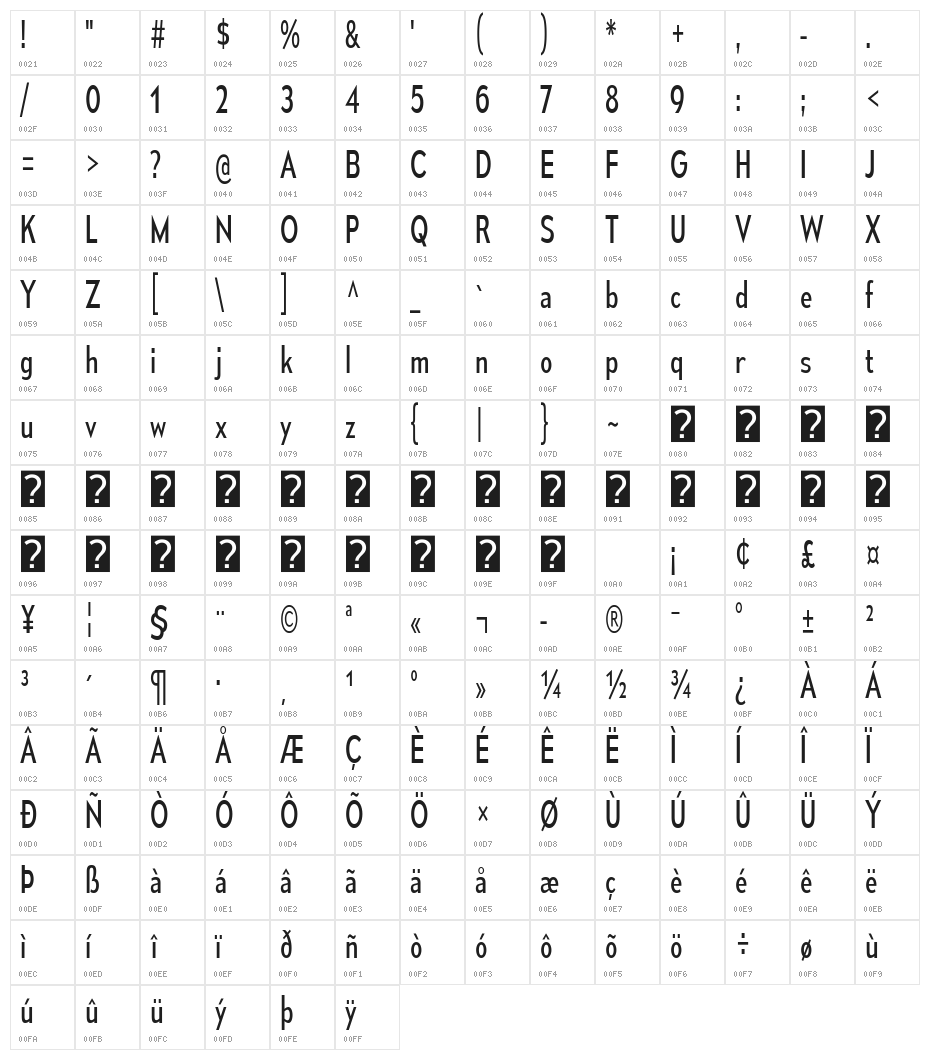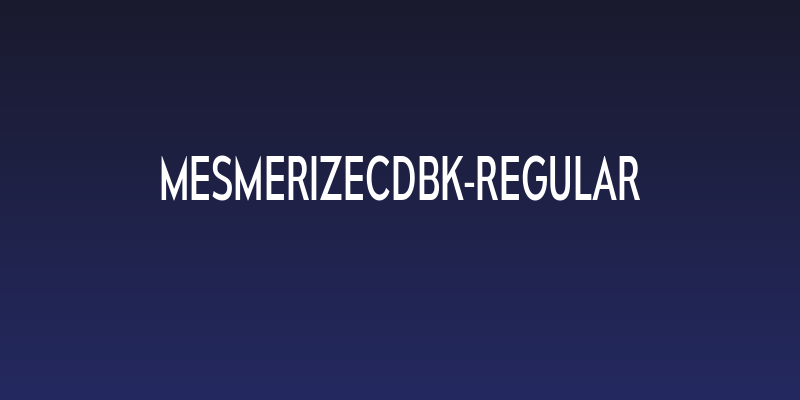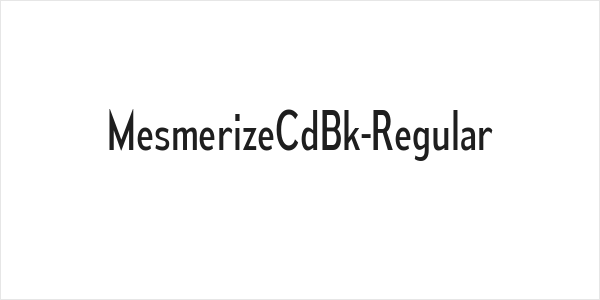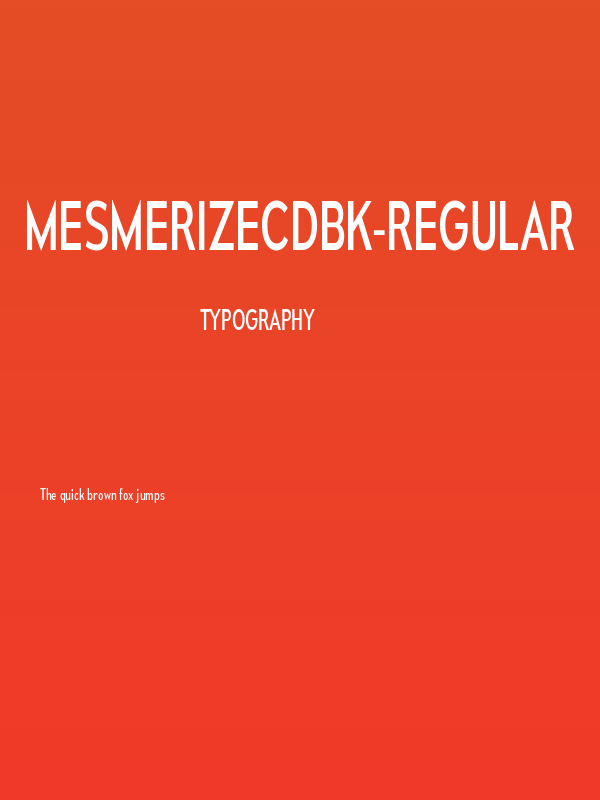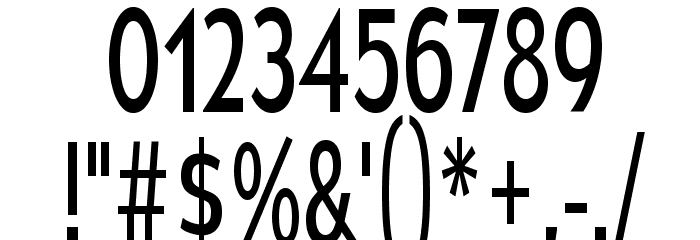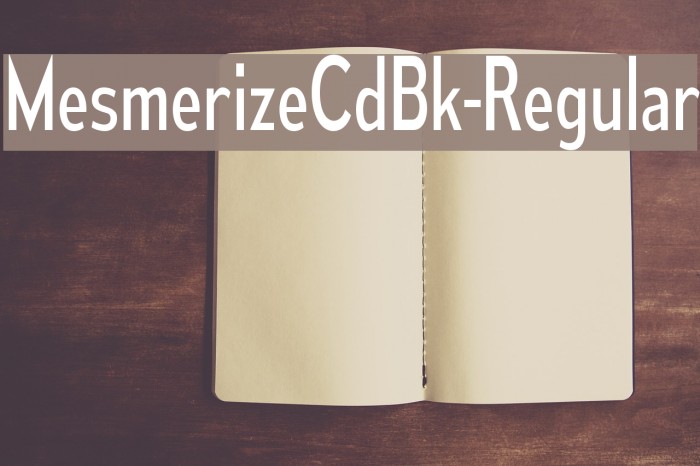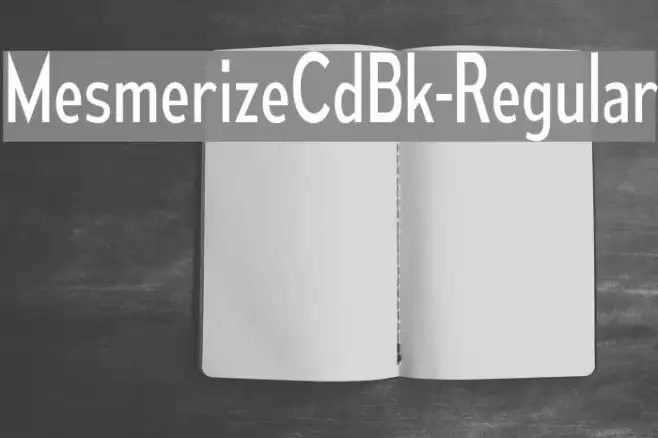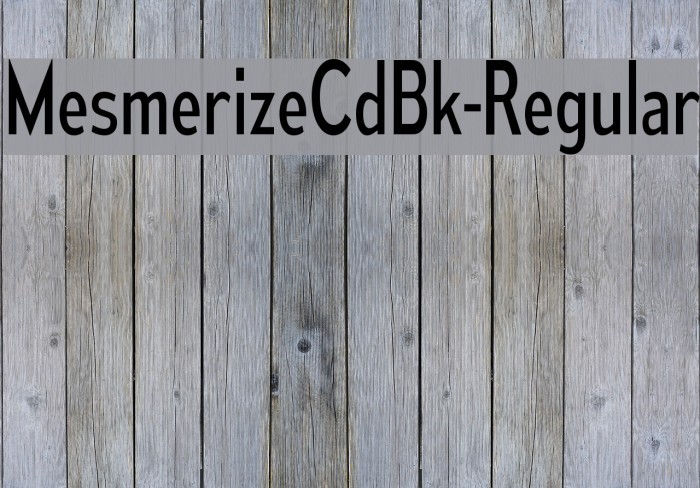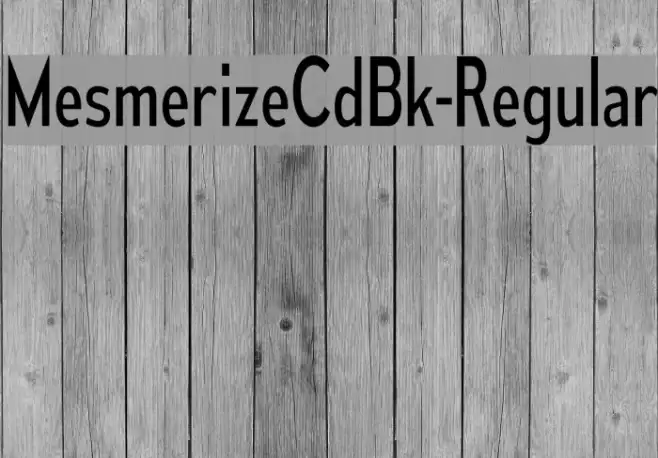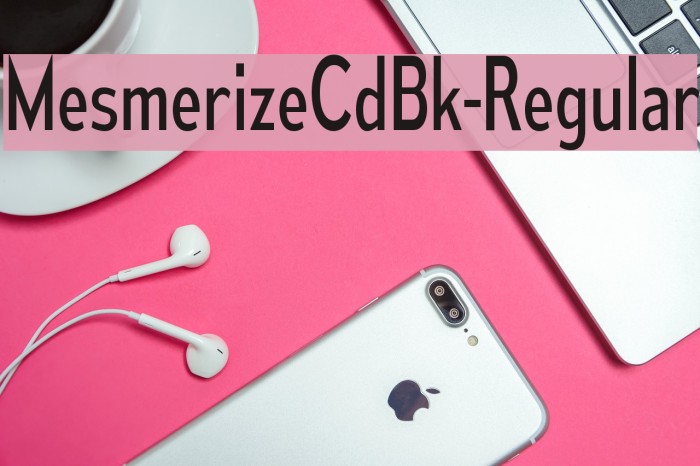
MesmerizeCdBk-Regular Font
MesmerizeCdBk-Regular Description
This typeface features a clean and modern sans-serif design, characterized by its condensed letterforms and uniform stroke widths. The uppercase letters are bold and assertive, while the lowercase letters maintain a consistent height and spacing, ensuring readability. The numerals are clear and distinct, making them suitable for various applications. Special characters are well-defined, adding to the font's versatility. The overall appearance is sleek and professional, making it ideal for both digital and print media.